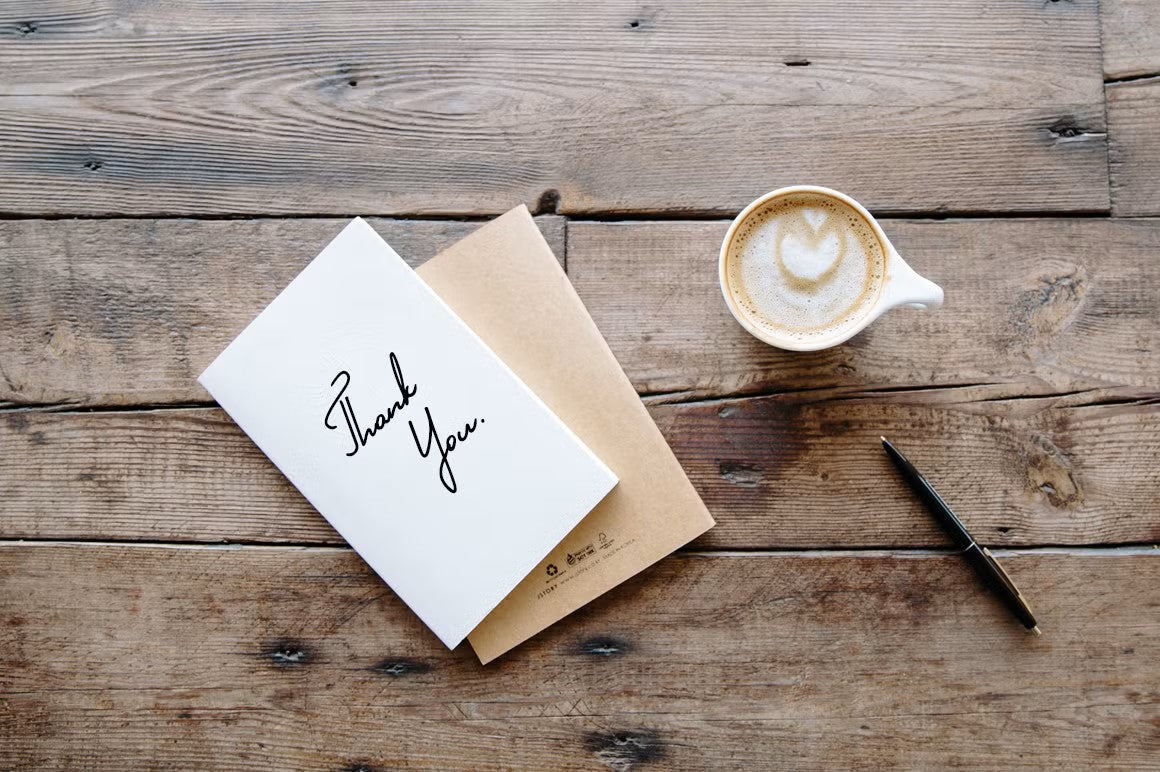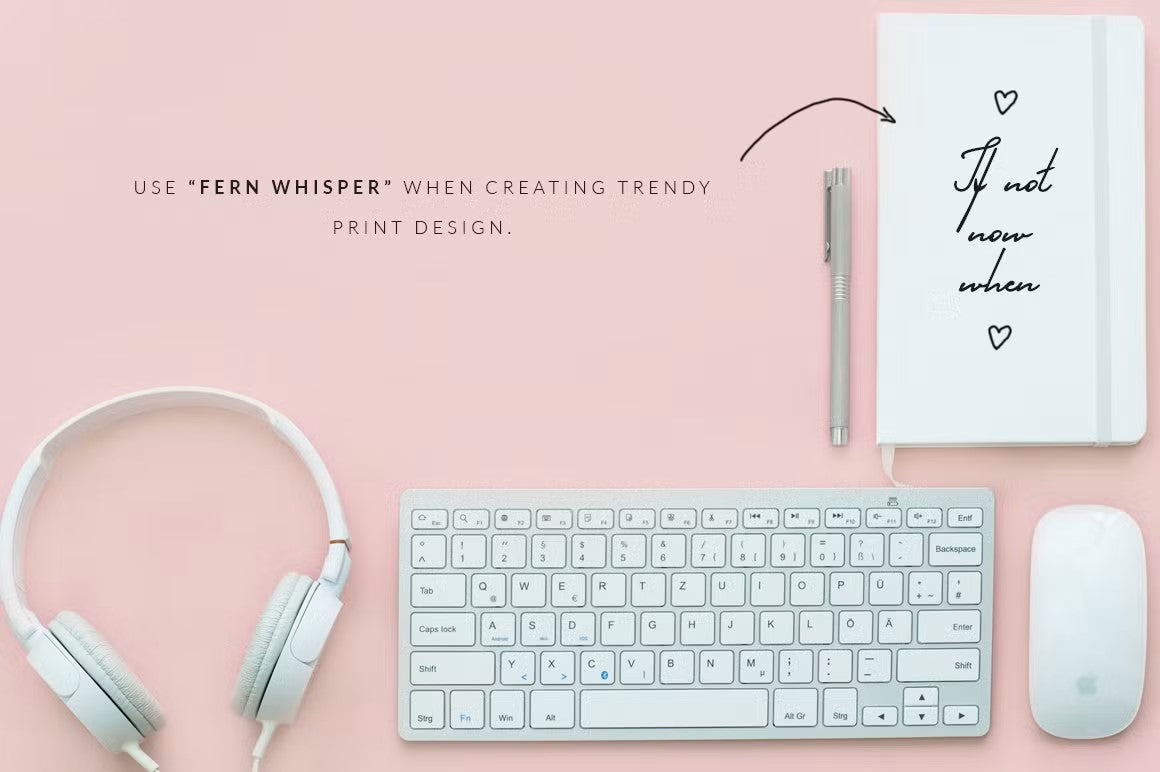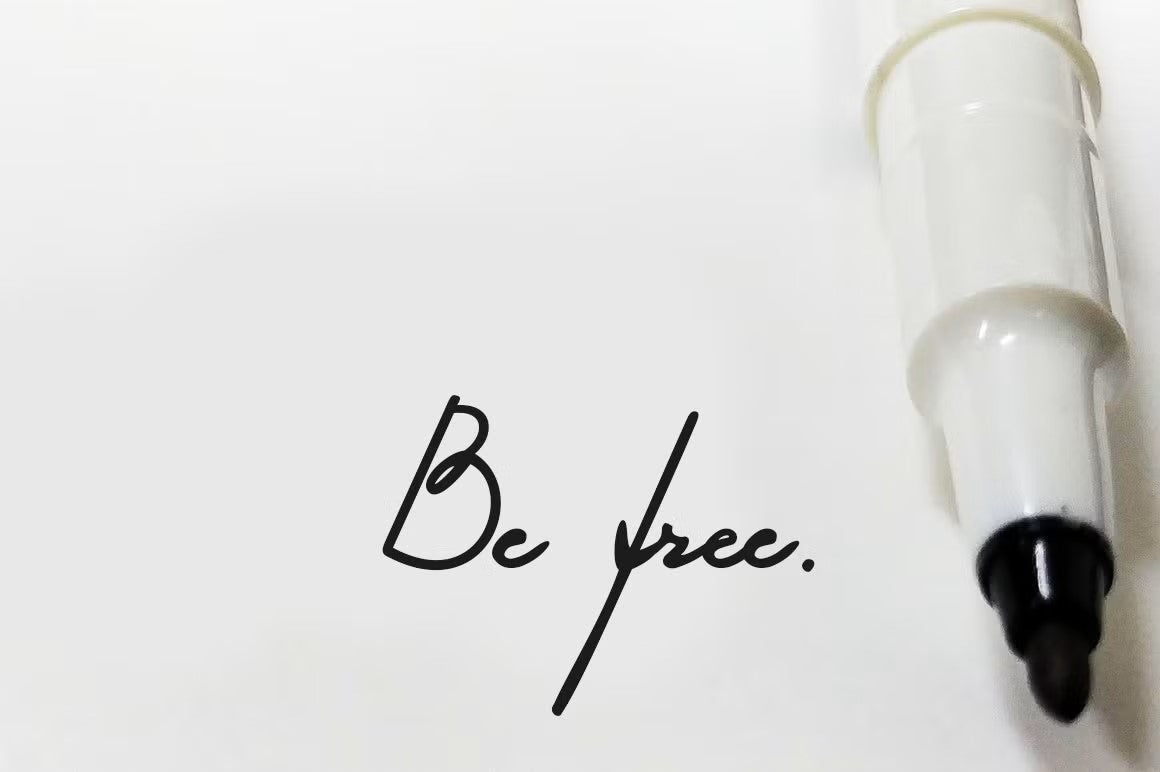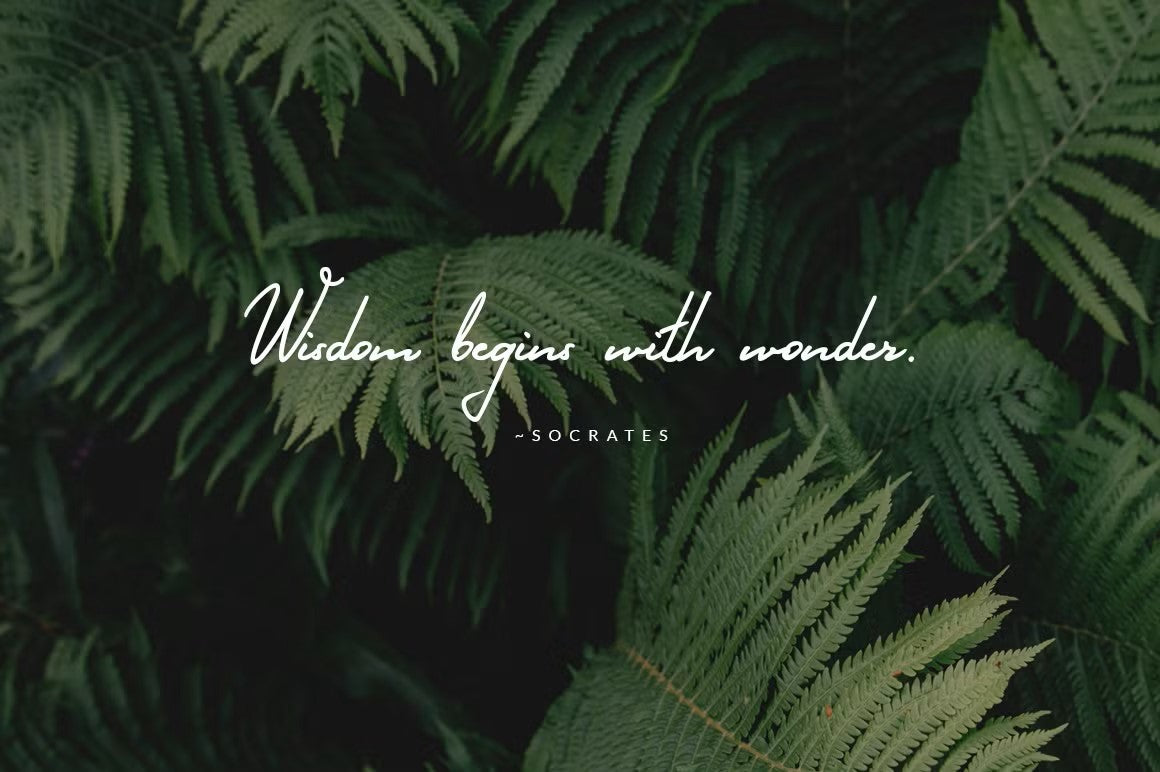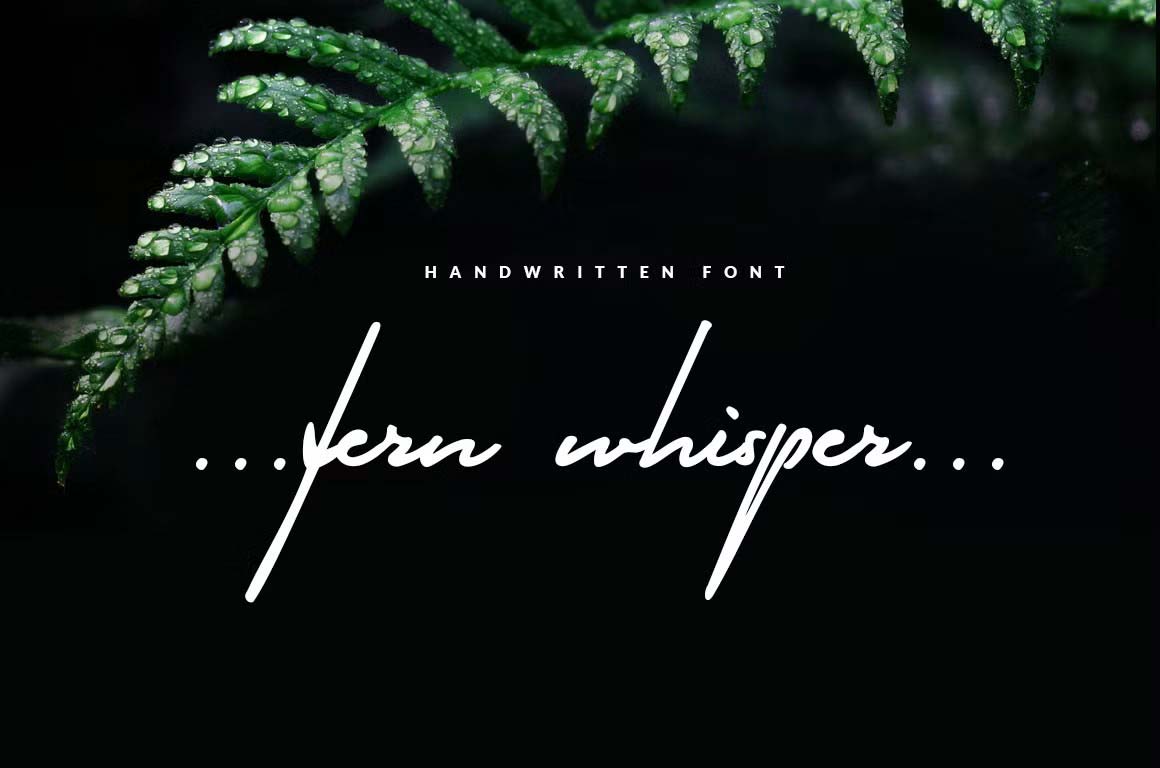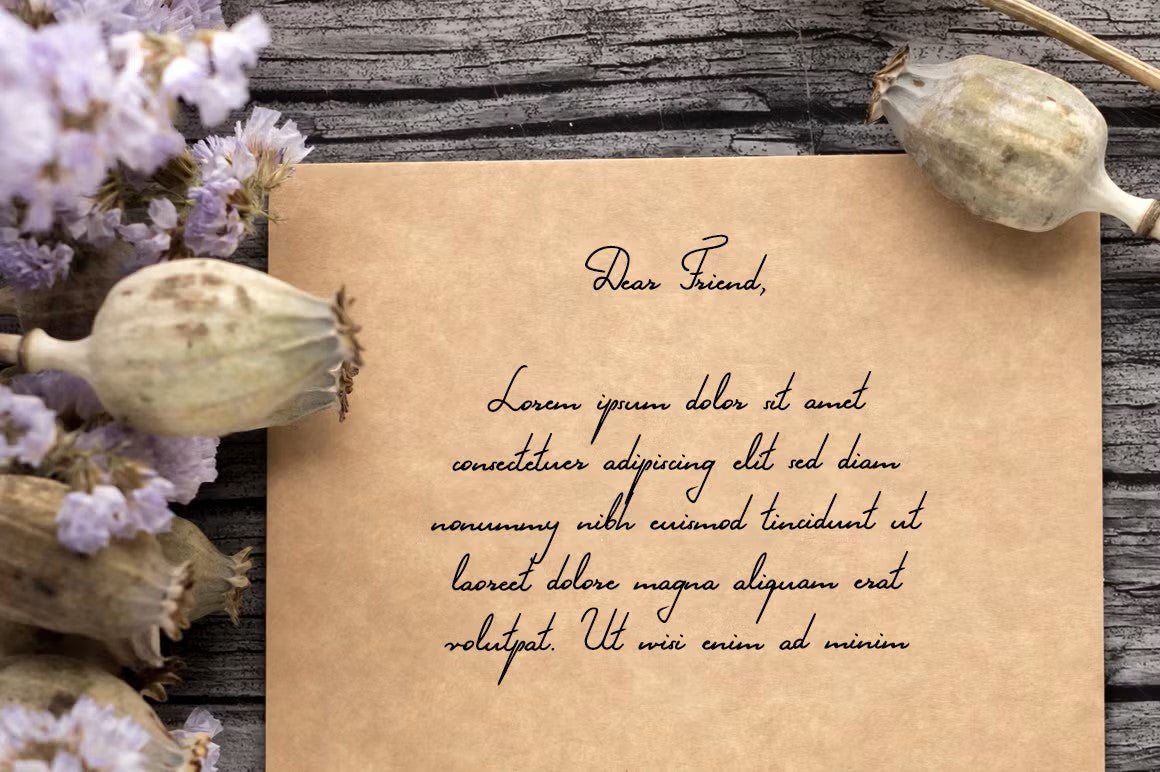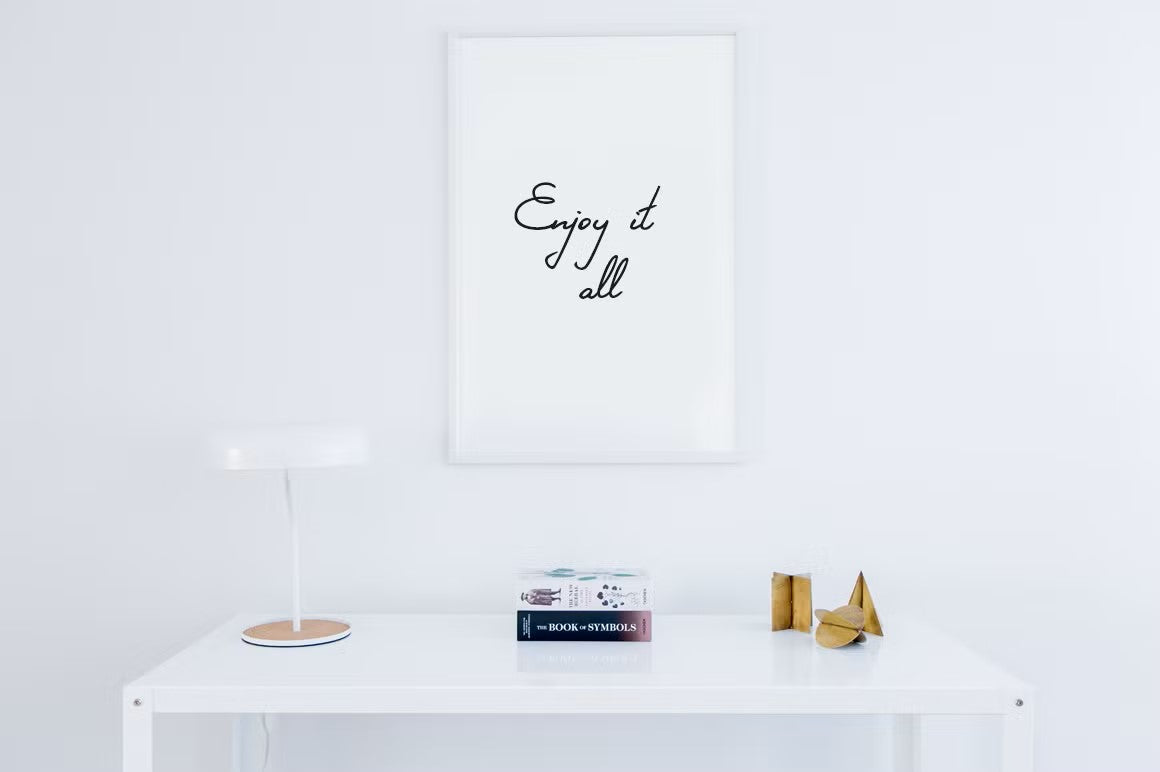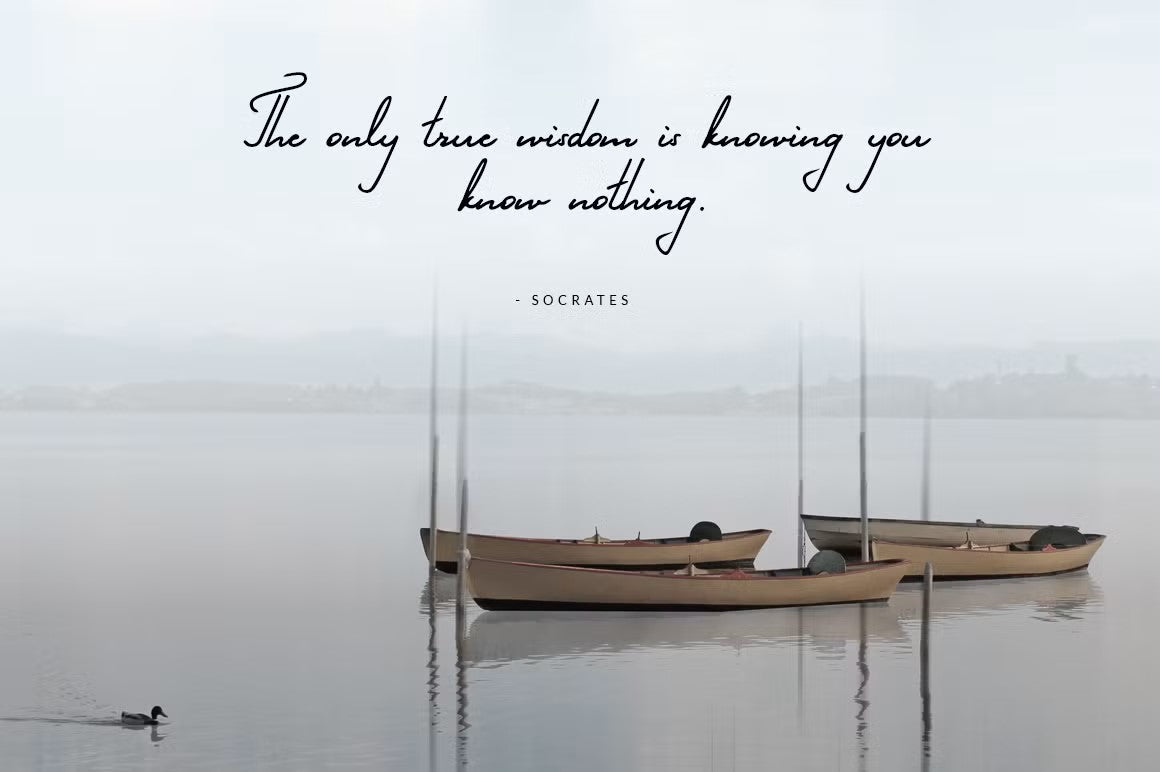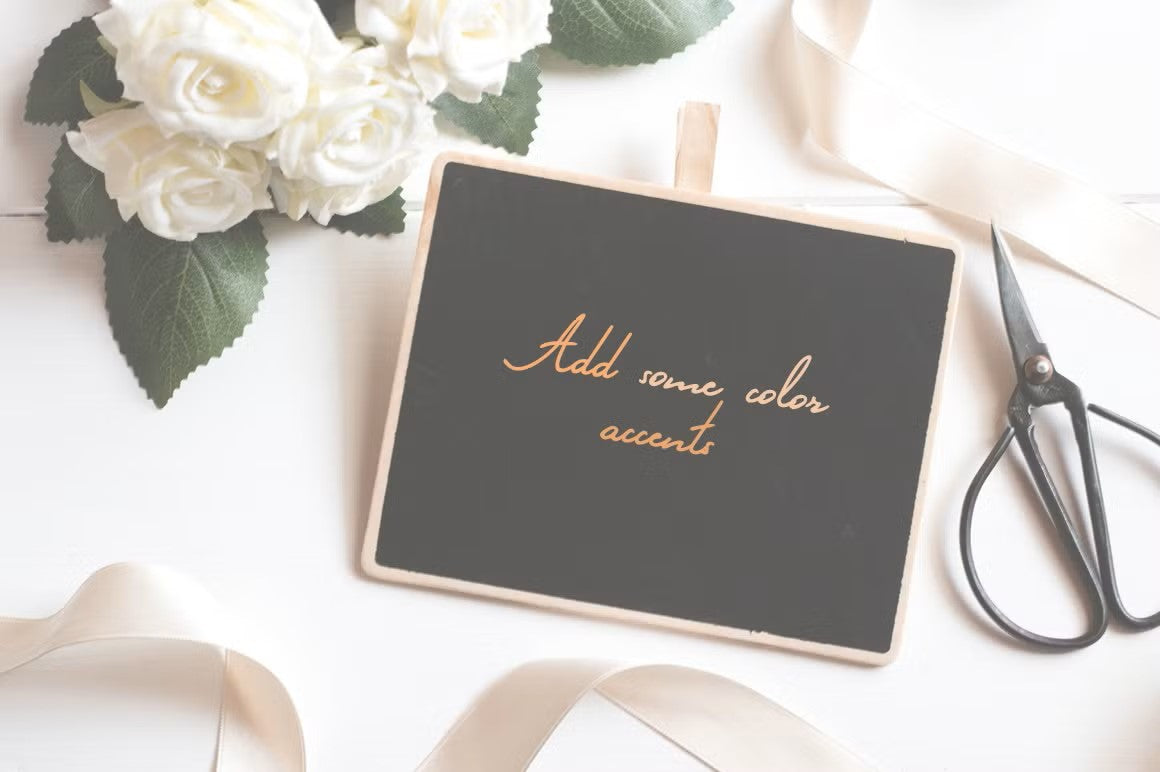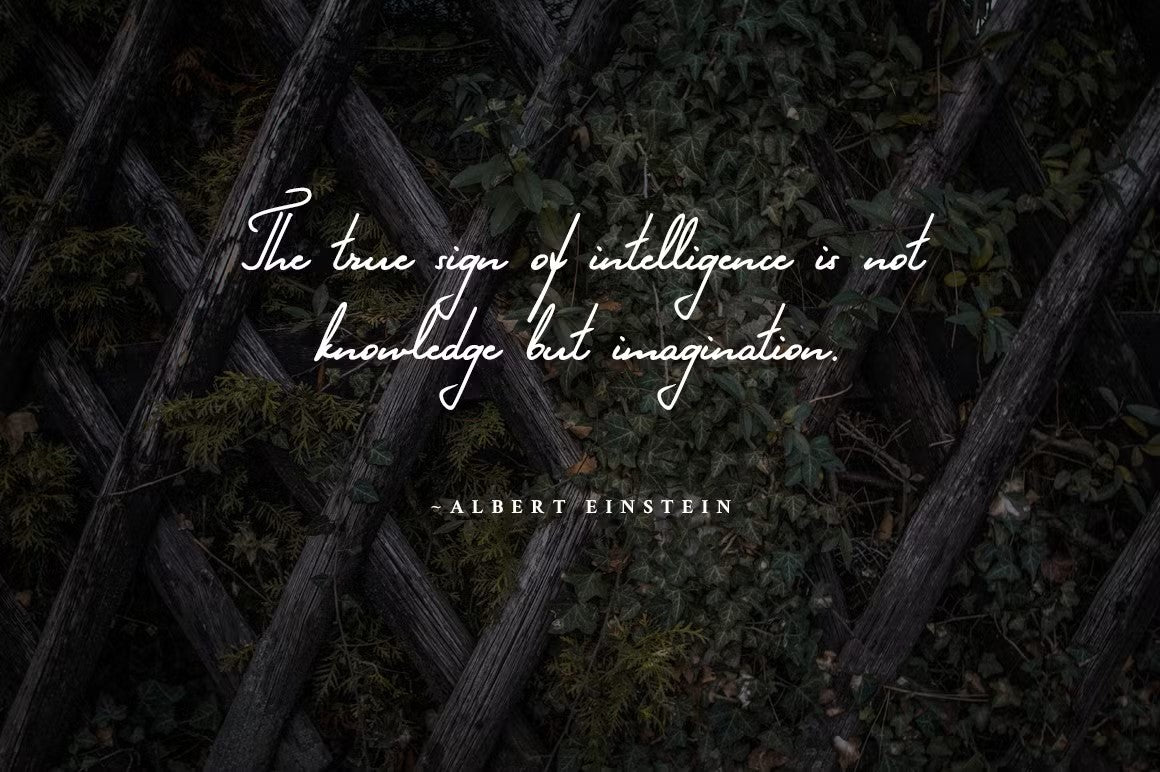
Fern Whisper - classy signature font
Fern Whisper - classy signature font. Great for modern and classic design. If you want to add a stylish touch to your designs, pair "Fern Whisper" with all-caps serif and sans serif fonts. This font gives a personal feel and looks great in large paragraphs of text and when is used for creating a logo design, or when you need to highlight some kind of short phrase in big letters. Use it for creating T-shirts, posters, wedding invitations, logos, packaging and other print design. Also, it is great for web projects, stylish quotes on your Instagram or other social media.